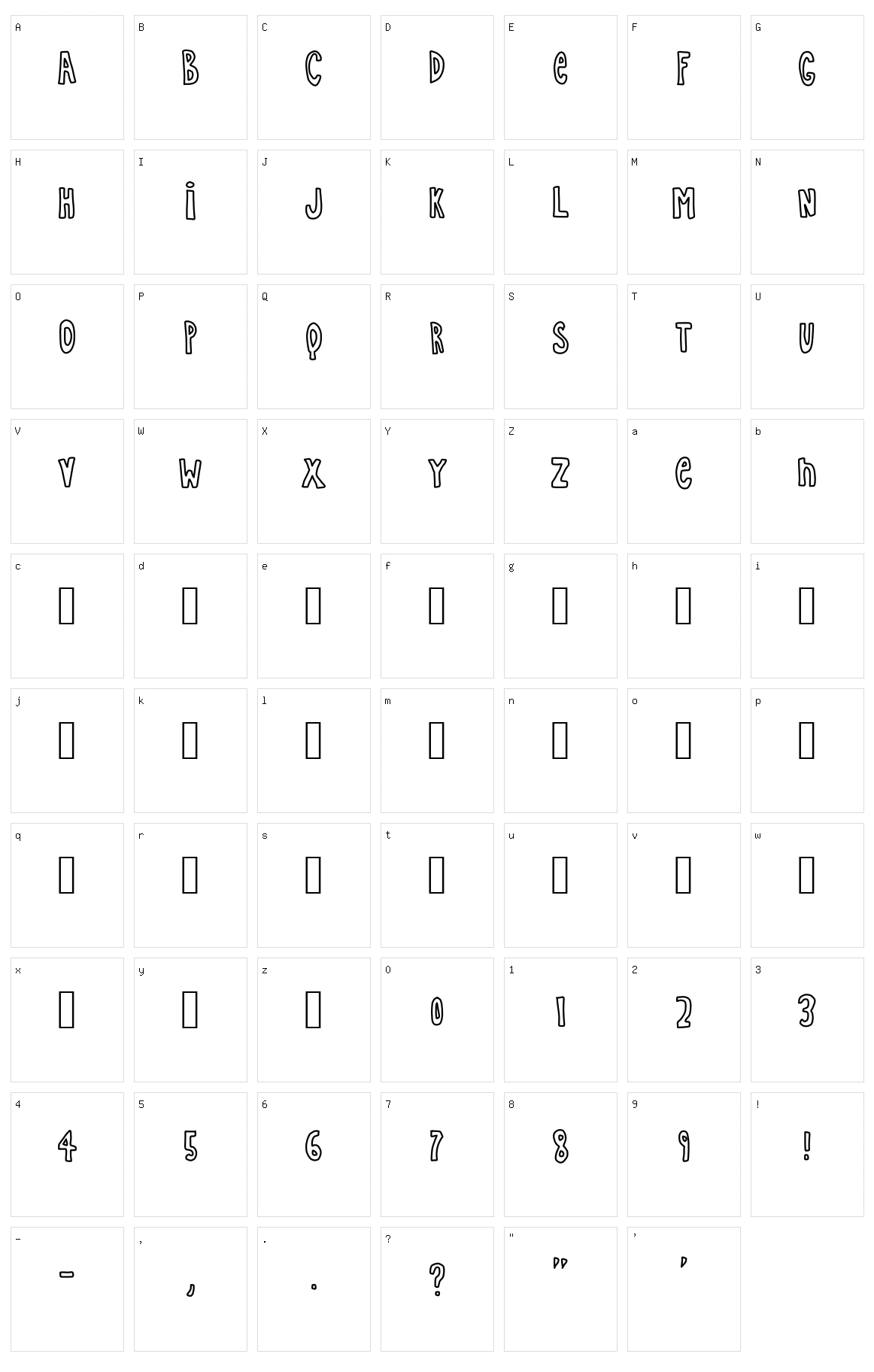
The free font Simple Life is carefully designed by Geronimo Font Studios, showcasing a thoughtful balance of creativity and usability and falls under the Cartoon font style. When you download the ZIP file, it contains only 15.08 KB of font files, making it lightweight and quick to download. Please review the license details below to understand permitted usage and distribution rights. If license information is not available, we recommend using this font for personal projects only or contacting the author directly for commercial usage permissions.